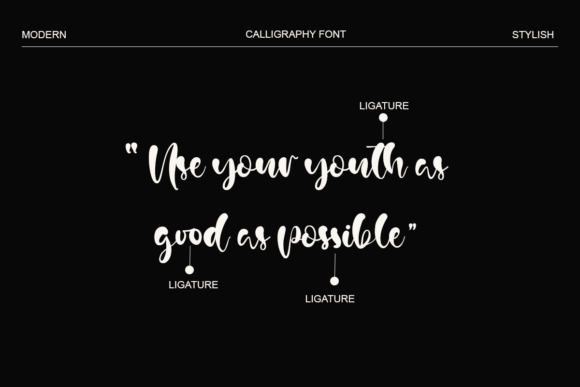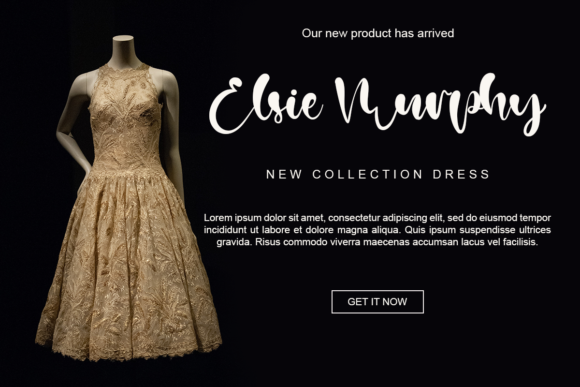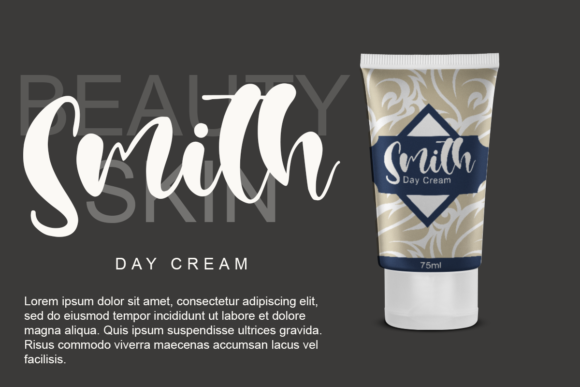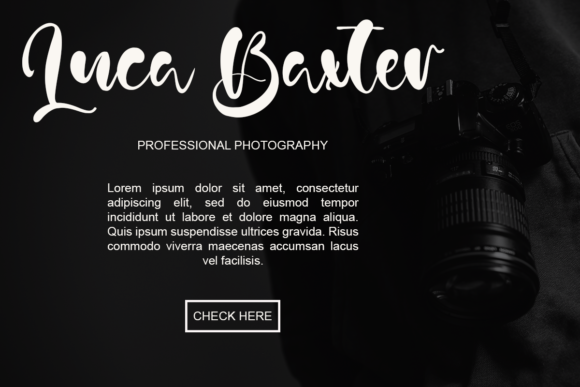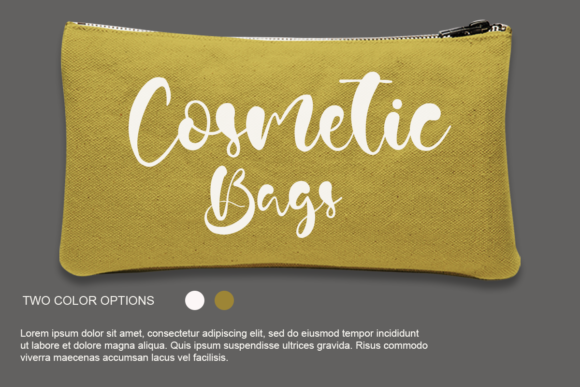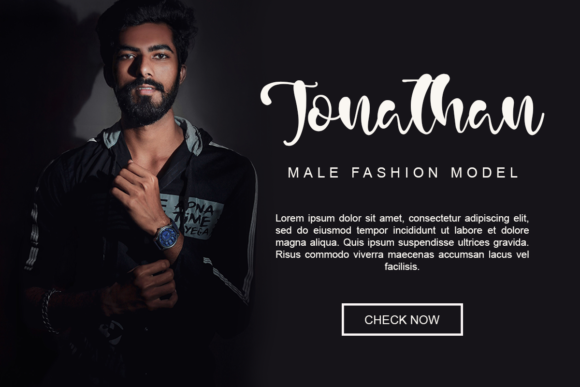
Austin Aiden Font: Elevate Your Designs with Modern Script Elegance
In the realm of typography, a font can make or break a design. For designers and crafters looking to infuse their projects with a touch of modern sophistication, the Austin Aiden Font stands out as a versatile and captivating choice. This modern script typeface is not just a font; it’s a design statement that can elevate your logotypes, branding design, logo design, digital lettering arts, and a myriad of other creative endeavors.
The Versatility of Austin Aiden Font
Austin Aiden is crafted to be more than just a typeface; it’s a tool for creativity. Its modern script style lends itself beautifully to a variety of applications. Whether you’re working on:
- Logotypes: Create memorable brand logos that stand out.
- Branding Design: Consistency and style are key, and Austin Aiden delivers.
- Logo Design: Make a statement with elegant and modern script letters.
- Digital Lettering Arts: Bring your digital art to life with flowing script typography.
- T-shirt/Apparel: Stand out in the fashion world with stylish and legible text.
- Posters: Grab attention with bold and beautiful script.
- Magazines: Add an element of sophistication to your editorial designs.
- Signs: Guide, inform, or advertise with elegance.
- Advertising Design: Elevate your campaigns with a professional and modern look.
Why Choose Austin Aiden Font?
Austin Aiden Font is not just another typeface; it’s a design solution that brings with it a multitude of benefits:
- Attention-Grabbing: Its modern script style is designed to capture everyone’s attention, making your designs hard to ignore.
- Versatility: From digital platforms to print, Austin Aiden adapts seamlessly, ensuring your designs look great everywhere.
- Elegance: It brings a level of sophistication and elegance to your designs, perfect for brands and projects aiming to appear modern and stylish.
- Creativity: Whether you’re a professional designer or a DIY crafter, Austin Aiden inspires creativity and makes your design process smoother.
Tips for Using Austin Aiden Effectively
To get the most out of Austin Aiden Font, consider the following tips:
- Pair Wisely: Combine Austin Aiden with complementary fonts for contrast and hierarchy.
- Consider Legibility: Especially when using the font for body text or in smaller sizes.
- Limit Usage: While it’s versatile, using Austin Aiden sparingly can make it more impactful.
Austin Aiden Font is a powerful tool for anyone looking to add a touch of modern elegance to their designs. Its versatility, beauty, and the ability to capture attention make it an excellent choice for a wide range of projects. By incorporating Austin Aiden into your design toolkit, you’re not just adding a font; you’re elevating your design capabilities. So, add this beautiful font to your most creative designs and watch how it transforms your work, making it impossible to ignore.